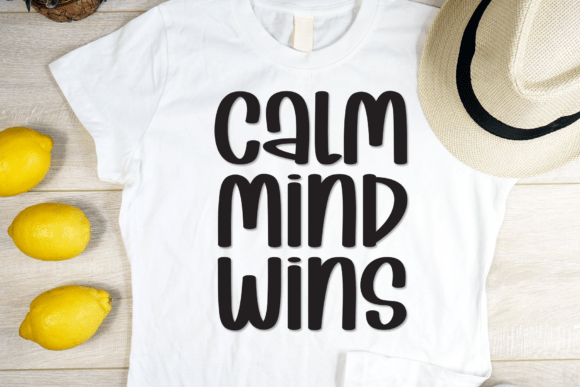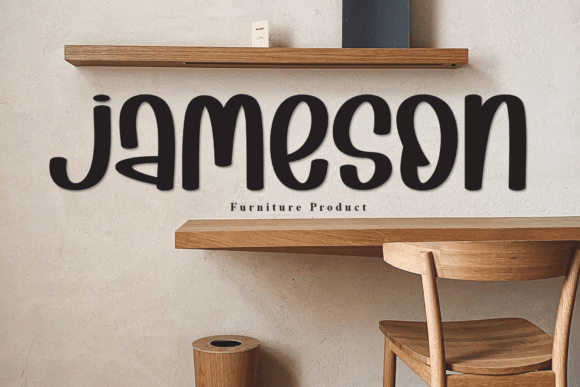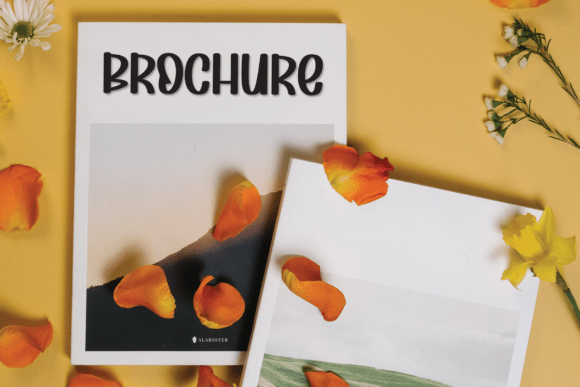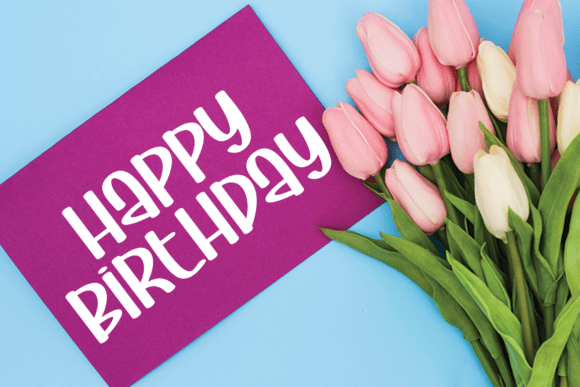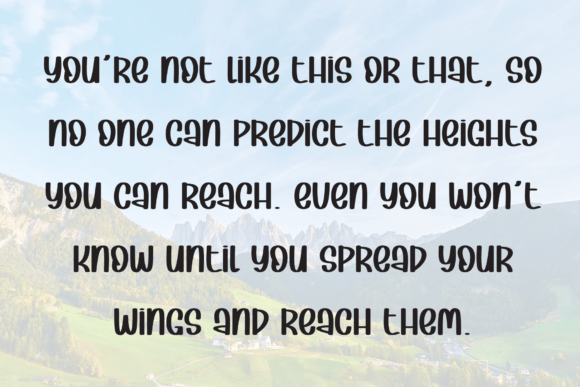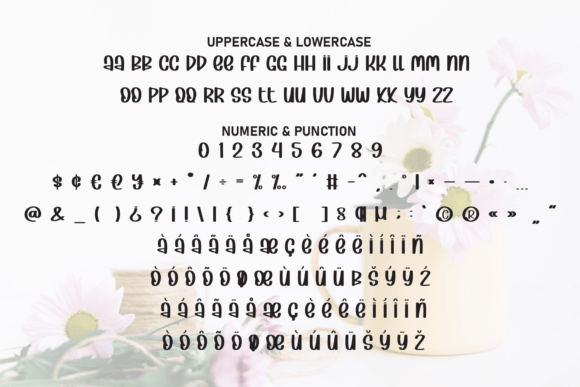
Introducing Daisy Tumbler Font: The Sweet Whimsy You Need for Your Creative Projects
Welcome to the enchanting realm of “Sweet Whimsy”, where creativity meets playfulness. In this world, the Daisy Tumbler Font takes center stage, offering a charmingly quirky handwritten display font that is sure to captivate your audience. Imbued with an engaging spirited quality, this font is your go-to choice for crafting captivating wedding invitations, heartfelt greeting cards, or any creative endeavor that calls for a dash of fun and artistry.
Unleash the Power of Sweet Whimsy
Sweet Whimsy is more than just a font – it’s an experience. It’s a feeling of joy, playfulness, and creativity that can elevate your designs to new heights. With its unique blend of cute, friendly, and fun essence, this font is perfect for designers and crafters who want to add a personal touch to their projects. Whether you’re creating wedding invitations, greeting cards, or social media graphics, Sweet Whimsy is the perfect companion to help you bring your ideas to life.
The Characteristics of Daisy Tumbler Font
The Daisy Tumbler Font is a true gem in the world of typography. Its handwritten display style is characterized by:
- Quirky and charming letterforms: Each letter is carefully crafted to exude a sense of playfulness and whimsy, making it perfect for creative projects.
- Engaging spirited quality: The font has a lively and energetic feel to it, making it ideal for designs that require a dash of fun and personality.
- Cute and friendly essence: The font’s friendly and approachable nature makes it perfect for designs that require a personal touch.
The Daisy Tumbler Font is versatile and can be used for a wide range of creative projects, including:
- Wedding invitations: Add a touch of whimsy and romance to your wedding invitations with this beautiful font.
- Greeting cards: Create heartfelt and personalized greeting cards for special occasions like birthdays, anniversaries, and holidays.
- Social media graphics: Use the Daisy Tumbler Font to create engaging and eye-catching social media graphics that showcase your brand’s personality.
- Branding and packaging: Add a touch of playfulness to your brand’s packaging and branding materials with this unique font.
Why Choose Daisy Tumbler Font?
With so many fonts available, why choose the Daisy Tumbler Font? Here are just a few reasons:
- Unique and distinctive: This font is unlike any other, offering a fresh and unique perspective on handwritten typography.
- Easy to read: Despite its playful nature, the Daisy Tumbler Font is easy to read and understand, making it perfect for designs that require clear communication.
- Customizable: The font can be customized to fit your specific design needs, allowing you to experiment with different colors, textures, and styles.
Tips for Using Daisy Tumbler Font
To get the most out of the Daisy Tumbler Font, here are a few tips:
- Experiment with colors: Try pairing the font with different colors and textures to add depth and interest to your designs.
- Play with font sizes: Experiment with different font sizes to create visual hierarchy and emphasize important information.
- Mix and match with other fonts: Combine the Daisy Tumbler Font with other fonts to create a unique and visually appealing typography.
In conclusion, the Daisy Tumbler Font is a charmingly quirky handwritten display font that is sure to bring a touch of whimsy and playfulness to your creative projects. With its unique blend of cute, friendly, and fun essence, this font is perfect for designers and crafters who want to add a personal touch to their designs. So why wait? Download the Daisy Tumbler Font today and experience the magic of Sweet Whimsy for yourself!